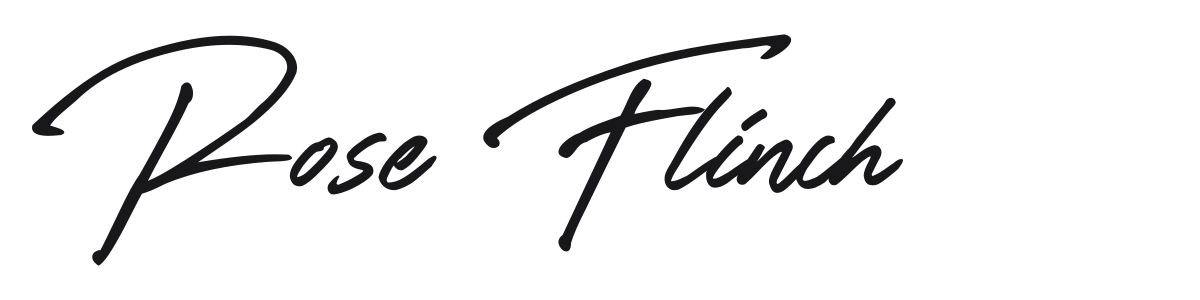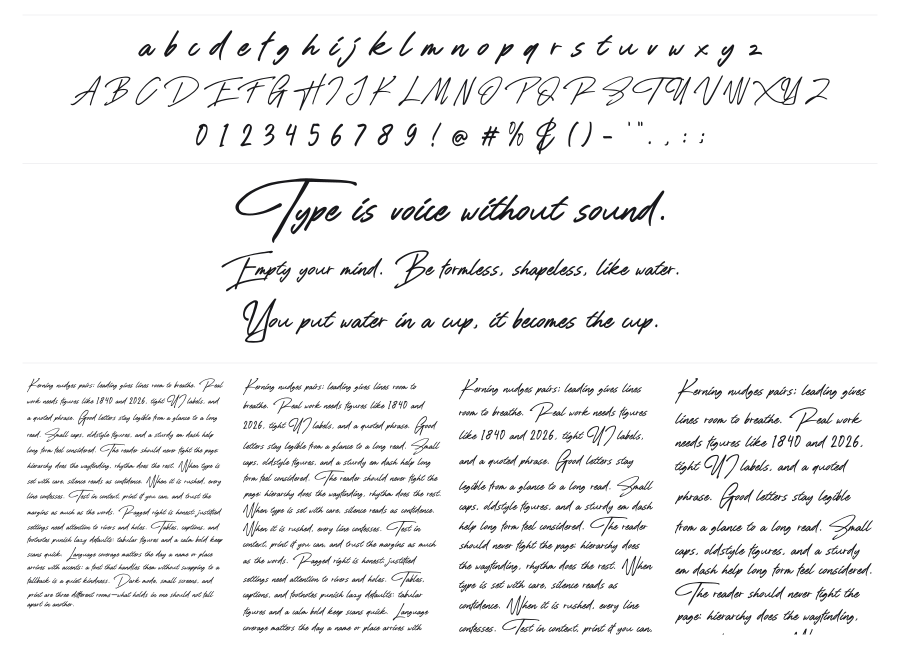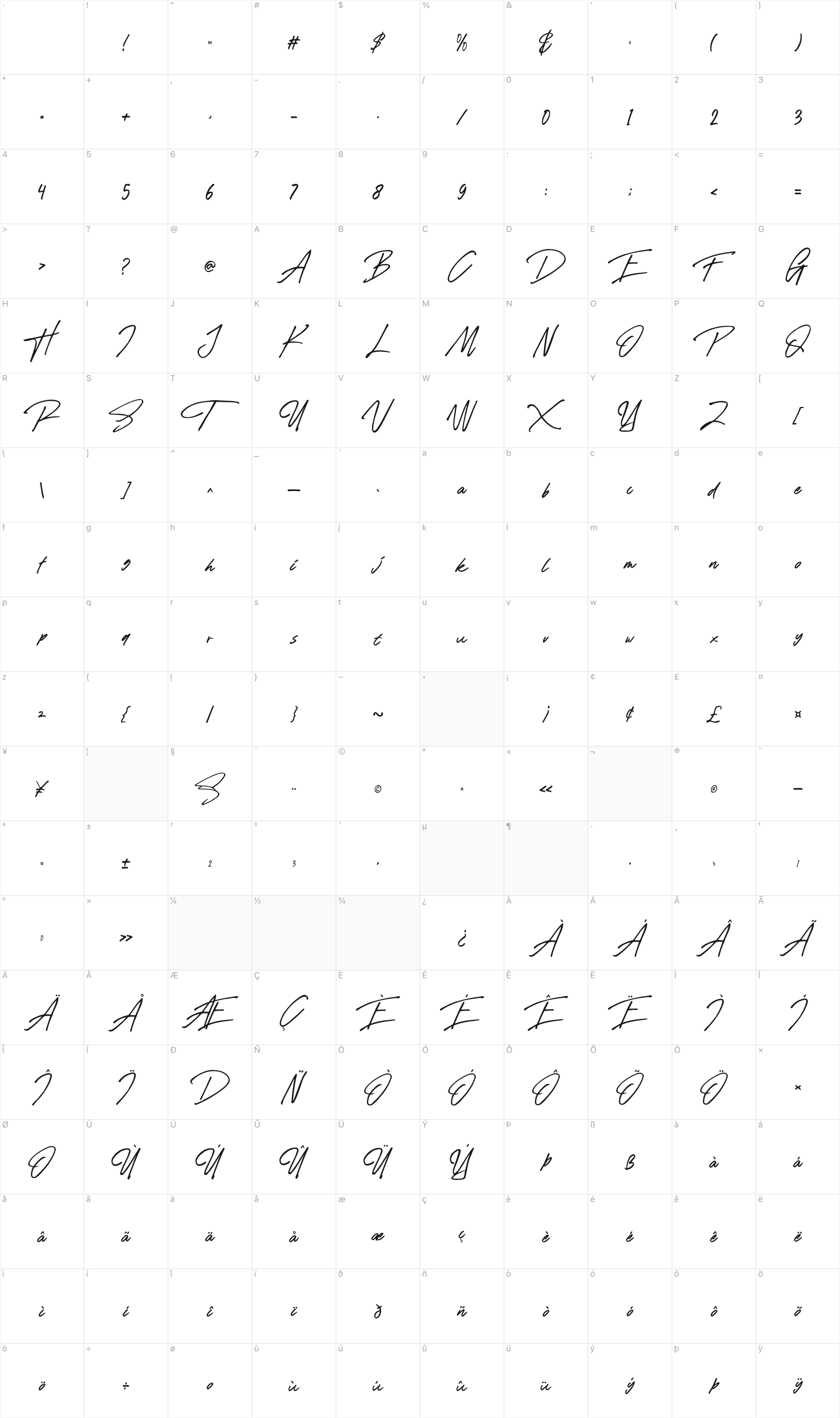
Rose Flinch
Rose Flinch is a casual handwritten script with loose, flowing connections and natural stroke variation. The letters have an unstudied, pen-on-paper feel, as if dashed off with confidence rather than carefully constructed. It reads warmly and personally, making it a strong choice for brands that want to feel approachable and human.